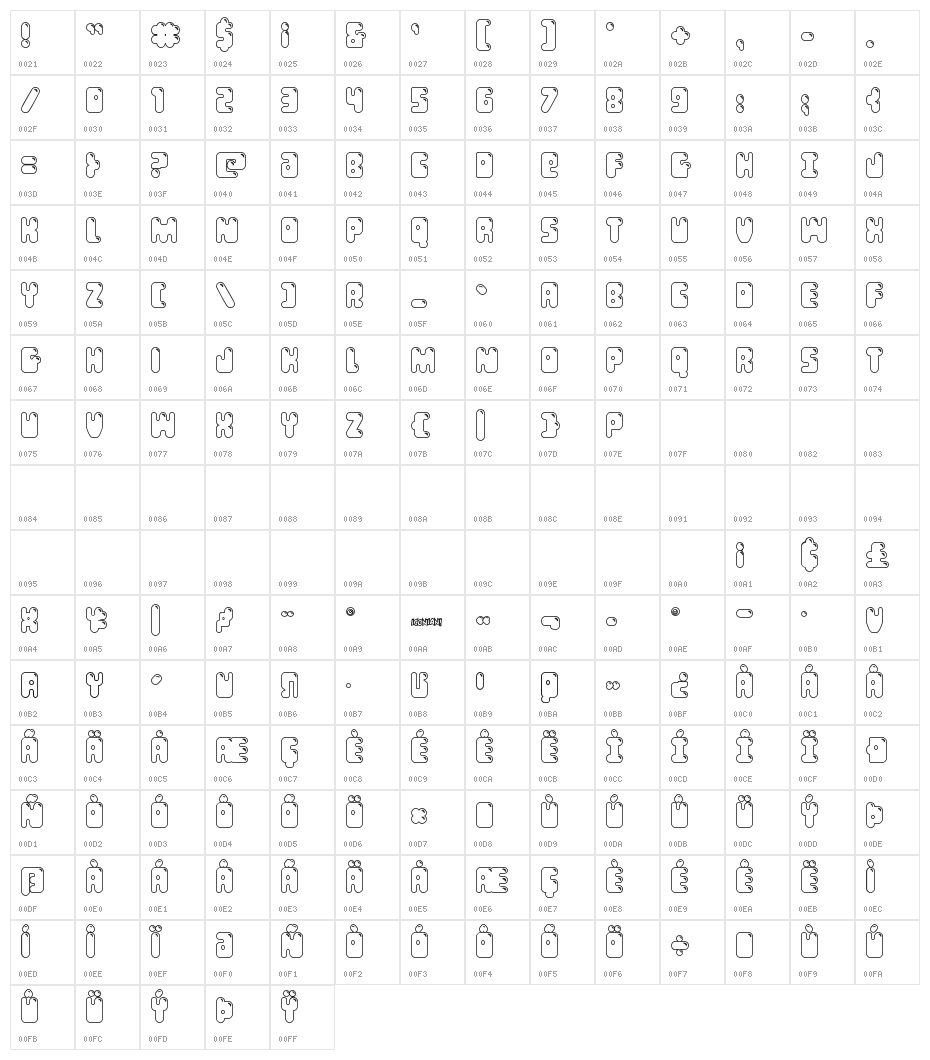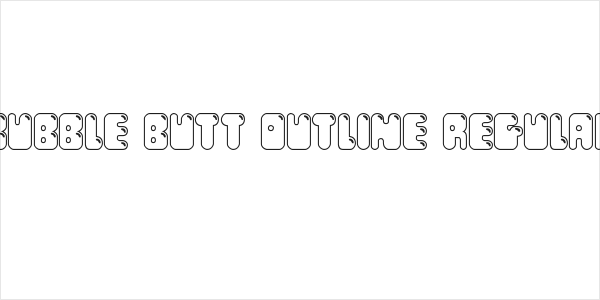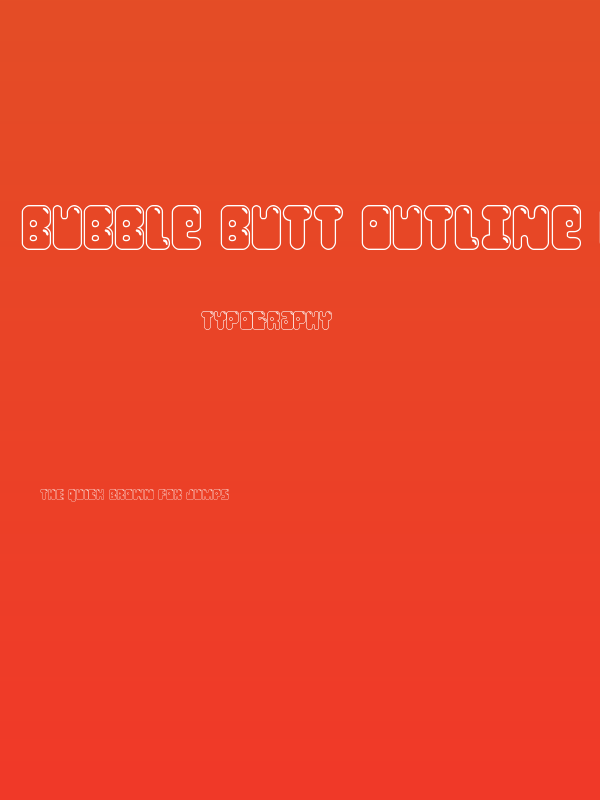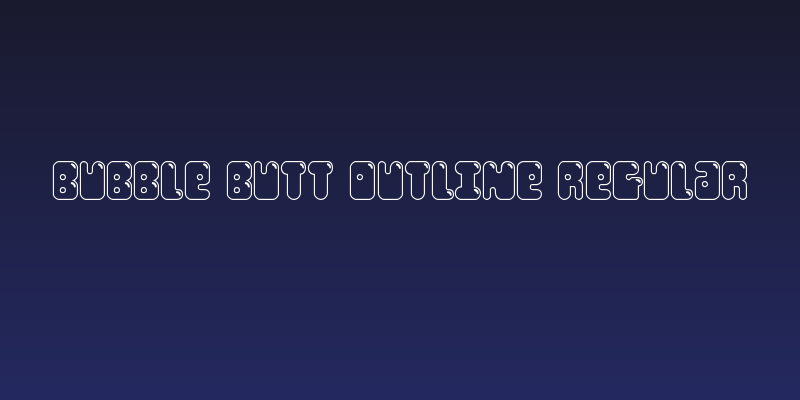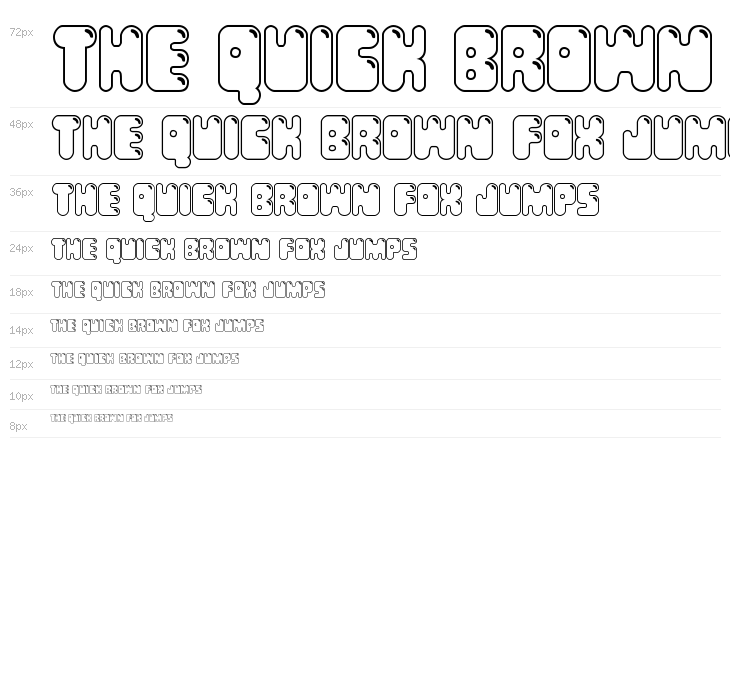
Bubble Butt Outline Regular Font
Bubble Butt Outline Regular Description
This playful and bold font features an outline style with rounded, bubble-like characters that give it a fun and whimsical appearance. The letters are evenly spaced and maintain a consistent thickness throughout, creating a cohesive look. The font's unique design includes rounded edges and a soft, approachable aesthetic, making it ideal for projects that require a friendly and inviting tone. The outline nature of the font allows for creative use of color and background, enhancing its versatility in various design contexts.